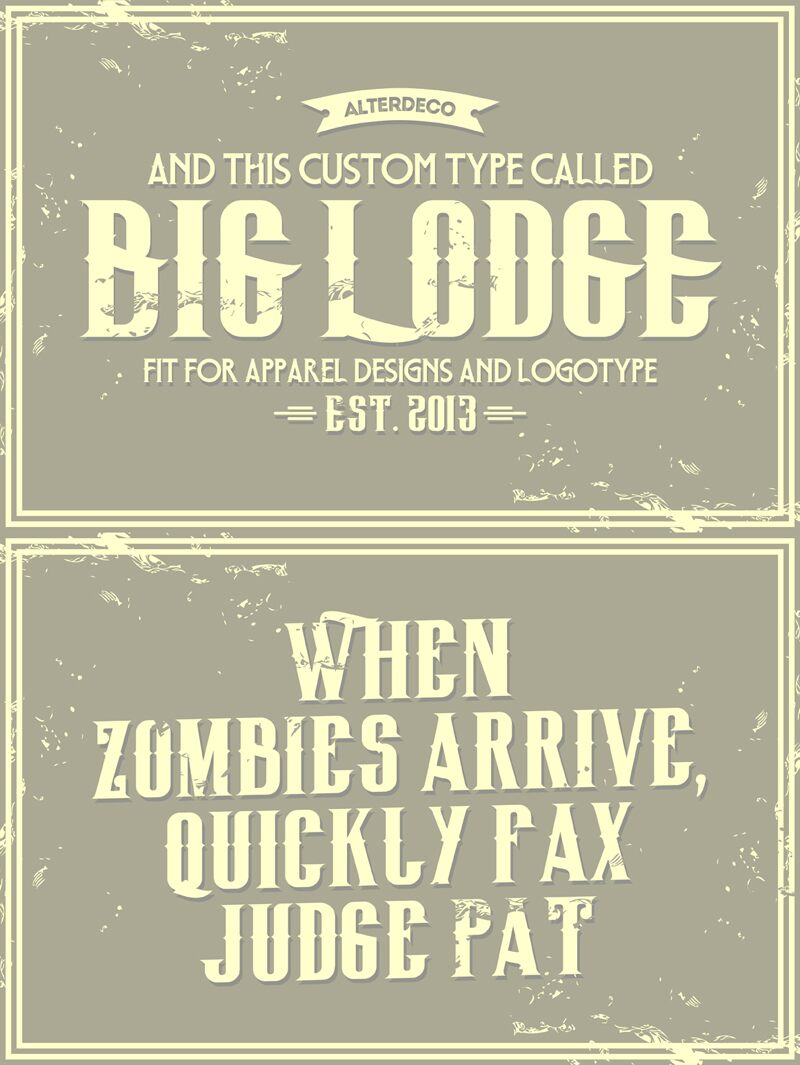
BigLodgeTypeFree
This is the free version of my "Big Lodge Type" font, wich is old fashioned type face, inspired by so many old and vintage typographys, retro tags, etc. please enjoy it and if you have any questions regarding this font, please contact me at helloadit@gmail.com - I am also available for custom logotype projects, and other graphic design related.